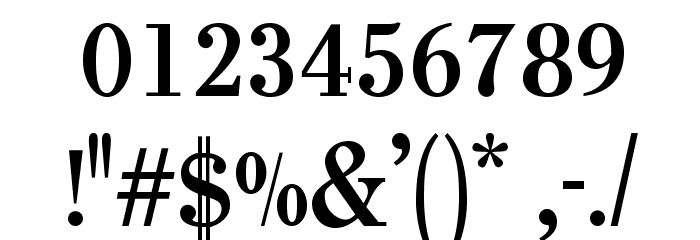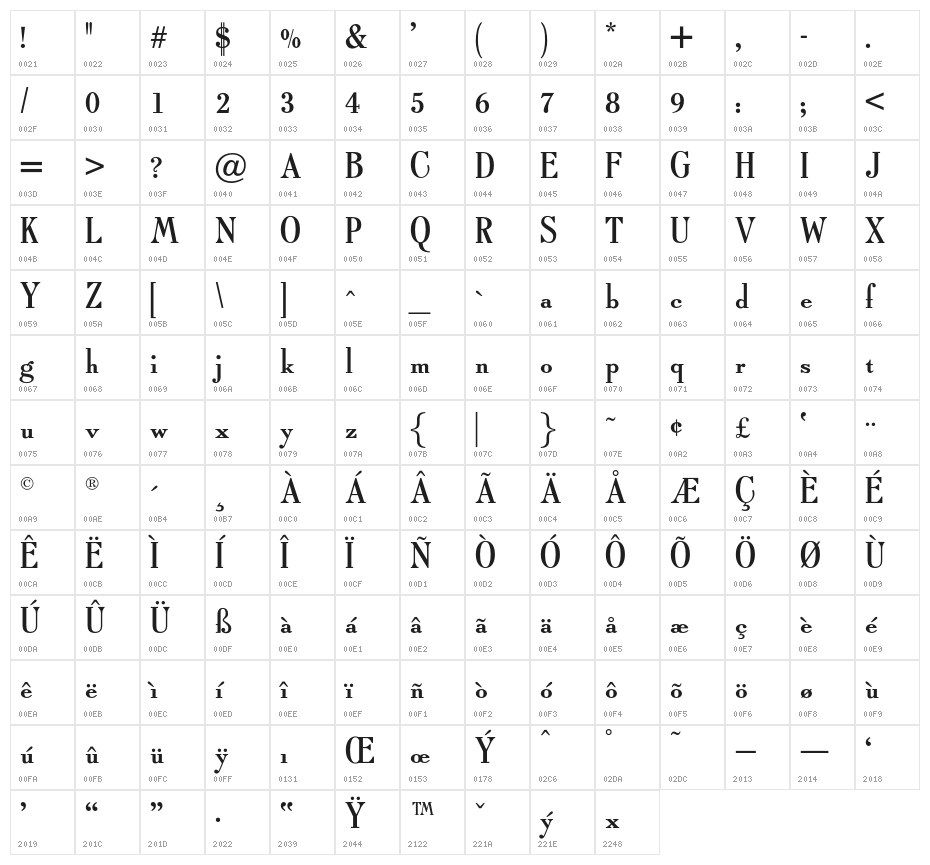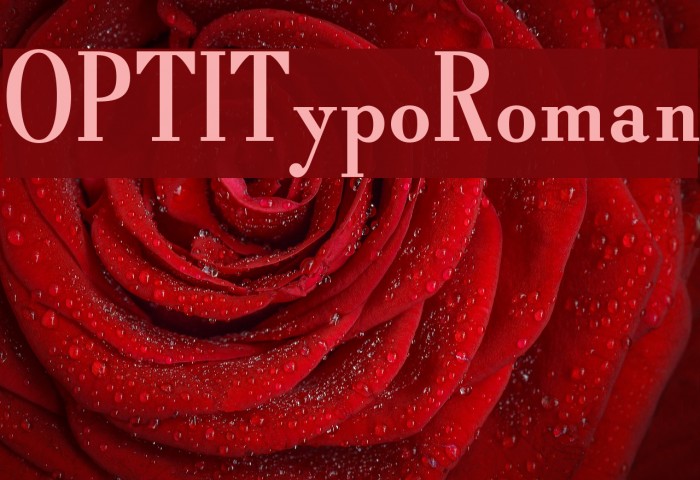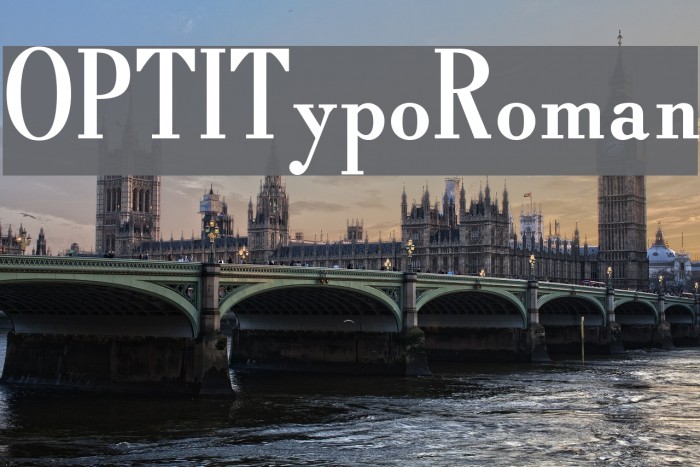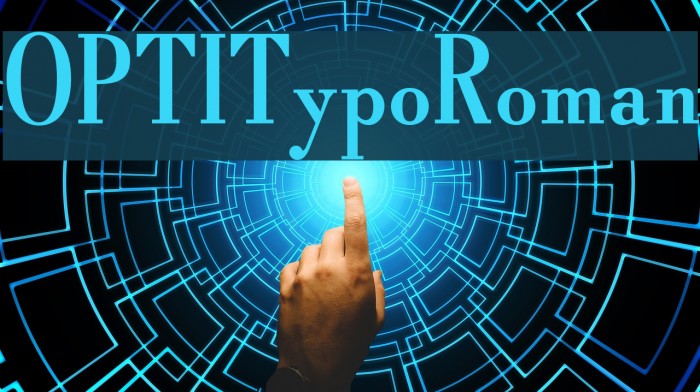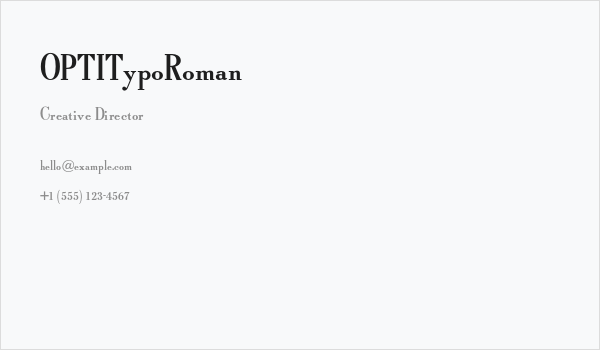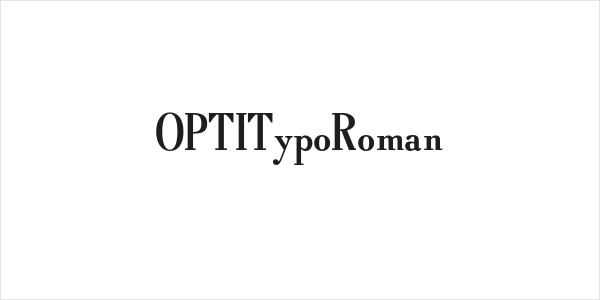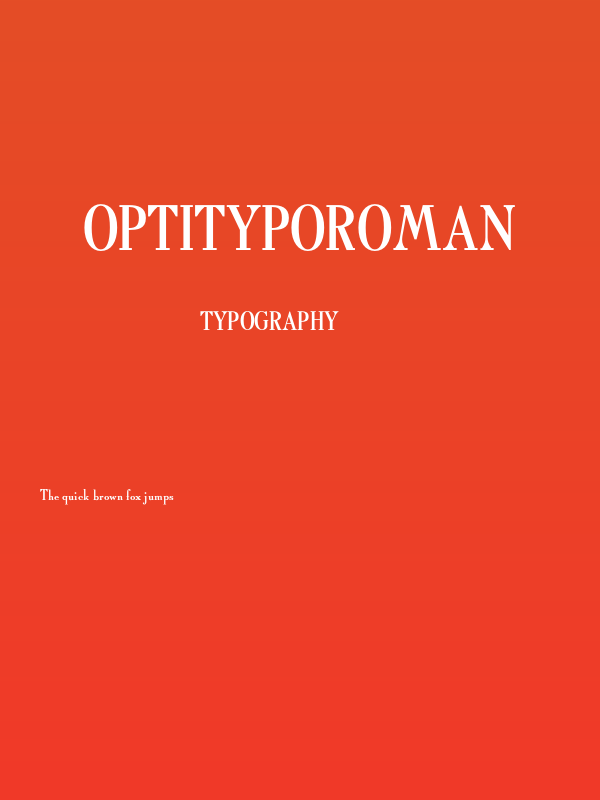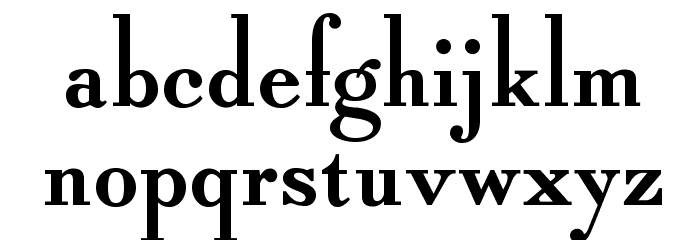
OPTITypoRoman Font
This font features a classic serif style with elegant and refined strokes. The uppercase letters are bold and prominent, while the lowercase letters maintain a balanced and harmonious appearance. The numerals are clear and distinct, making them easily readable. Special characters are designed with a sophisticated touch, adding to the overall aesthetic. The font's design is suitable for conveying a sense of tradition and reliability, making it ideal for formal documents and branding that requires a touch of class.
A classic serif font with elegant strokes and refined details.
• Proposed Projects: Ideal for book covers, formal invitations, branding for luxury goods, and editorial design.